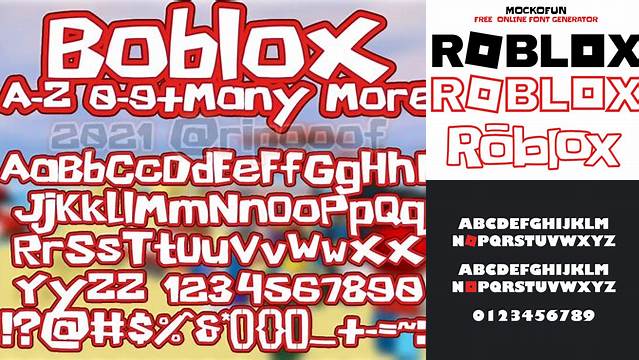
Free Roblox Fonts: Level Up Your Chat In 2024
Introduction: Level Up Your Roblox Chat with Custom Fonts
Hey guys! Are you tired of the same old font in Roblox chat? Do you want to add a personal touch to your in-game communication and stand out from the crowd? Well, you're in luck! Custom fonts can transform your Roblox experience, making your messages more expressive and engaging. In this article, we'll dive deep into the world of free fonts for Roblox chat, exploring how to find them, how to use them, and how they can elevate your overall gameplay. We will explore the importance of fonts in communication, discuss the limitations of default fonts, and how custom fonts can overcome these limitations. Then, we'll guide you through the process of finding, installing, and using free fonts in Roblox chat, ensuring you can personalize your in-game messaging. Finally, we'll touch on the legal aspects and best practices to ensure you use fonts responsibly. So, let's get started and discover the exciting possibilities of custom fonts in Roblox! Choosing the right font can be more than just an aesthetic decision; it can significantly impact how your messages are perceived. A clear, readable font ensures your messages are easily understood, while a stylish font can add personality and flair to your communication. Imagine conveying excitement with a bold, dynamic font, or expressing a sense of mystery with an elegant, cursive typeface. The possibilities are endless, and the right font can help you connect with other players on a deeper level. However, the default font in Roblox can sometimes feel limiting. It lacks the variety and expressiveness that many players crave, making it difficult to truly showcase your personality in chat. This is where custom fonts come in. By using custom fonts, you can break free from these limitations and create a unique in-game identity. You can choose fonts that reflect your individual style, the tone of your messages, and even the theme of the game you're playing. This level of personalization can make your Roblox experience more immersive and enjoyable, allowing you to communicate with fellow players in a way that feels authentic and engaging.
Why Use Custom Fonts in Roblox Chat?
Let's face it, the default font in Roblox chat can feel a bit bland and repetitive. Using custom fonts in Roblox opens up a world of possibilities for self-expression and enhanced communication. Think about it: the font you use can convey emotions, set a tone, and even reflect your personality. A bold, playful font can add excitement to your messages, while a sleek, modern font can give off a sense of sophistication. Beyond aesthetics, custom fonts can also improve readability. If you find the default font straining your eyes, switching to a clearer, more legible font can make a huge difference. This is especially important during intense gameplay when you need to quickly read and understand messages. Imagine you are in a crucial moment of a game, trying to coordinate with your team. A clear and distinctive font ensures that instructions and strategies are easily read, potentially giving you a competitive edge. On the other hand, a poorly chosen font can lead to misunderstandings and frustration, especially if it's difficult to read or clashes with the game's aesthetic. Custom fonts also allow you to create a unique identity within the Roblox community. By choosing fonts that match your style and preferences, you can make your chat messages instantly recognizable. This can be particularly useful if you're a content creator, a game developer, or simply someone who wants to stand out from the crowd. Using custom fonts consistently can help you build a personal brand and make your interactions more memorable. Furthermore, custom fonts can enhance the overall immersion of the game. If you're playing a futuristic sci-fi game, a sleek, technological font can complement the game's theme and atmosphere. Similarly, if you're playing a medieval fantasy game, a classic, ornate font can add to the game's authenticity. This level of detail can significantly enhance the gaming experience, making it more engaging and enjoyable. Finally, the ability to use free fonts in Roblox chat provides an excellent opportunity for creativity and personalization. You can experiment with different fonts to find the perfect match for your style and the specific context of your conversations. Whether you're roleplaying, strategizing, or simply chatting with friends, custom fonts can add an extra layer of fun and self-expression to your Roblox interactions.
Finding Free Fonts for Roblox
Now that you're excited about using custom fonts, the next step is finding them! There are tons of resources online where you can discover free fonts perfect for Roblox chat. Some popular websites include Google Fonts, DaFont, and FontSpace. These platforms offer a vast library of fonts, ranging from classic styles to quirky and unique designs. When searching for fonts, keep in mind that not all fonts are created equal. You'll want to choose fonts that are not only visually appealing but also easy to read in a chat environment. Look for fonts with clear, distinct characters and avoid fonts that are too thin, overly stylized, or have complex details that might make them difficult to decipher. Additionally, it's essential to consider the licensing of the fonts you download. While many fonts are free for personal use, some may have restrictions on commercial use or modification. Always check the license agreement to ensure you're using the font in compliance with the terms. This is particularly important if you plan to use the fonts in your own Roblox games or creations that you intend to monetize. Websites like Google Fonts typically offer fonts under open-source licenses, which grant you broad permissions for usage, including commercial applications. Other platforms like DaFont and FontSpace offer a mix of licenses, so it's crucial to review the specific terms for each font you download. Beyond websites, you can also find free fonts through design communities and forums. These platforms often feature fonts created by independent designers, offering unique and creative options that you might not find on larger websites. Engaging with these communities can also provide valuable feedback and insights into font selection and usage. Once you've found a few fonts you like, it's a good idea to test them out in Roblox chat before committing to them. This will give you a sense of how the fonts look in the game environment and whether they are legible and visually appealing. You can try typing different messages, using various font sizes, and experimenting with different chat settings to ensure the font works well in a variety of contexts. Remember, the best font is one that not only looks good but also enhances your communication and overall gaming experience.